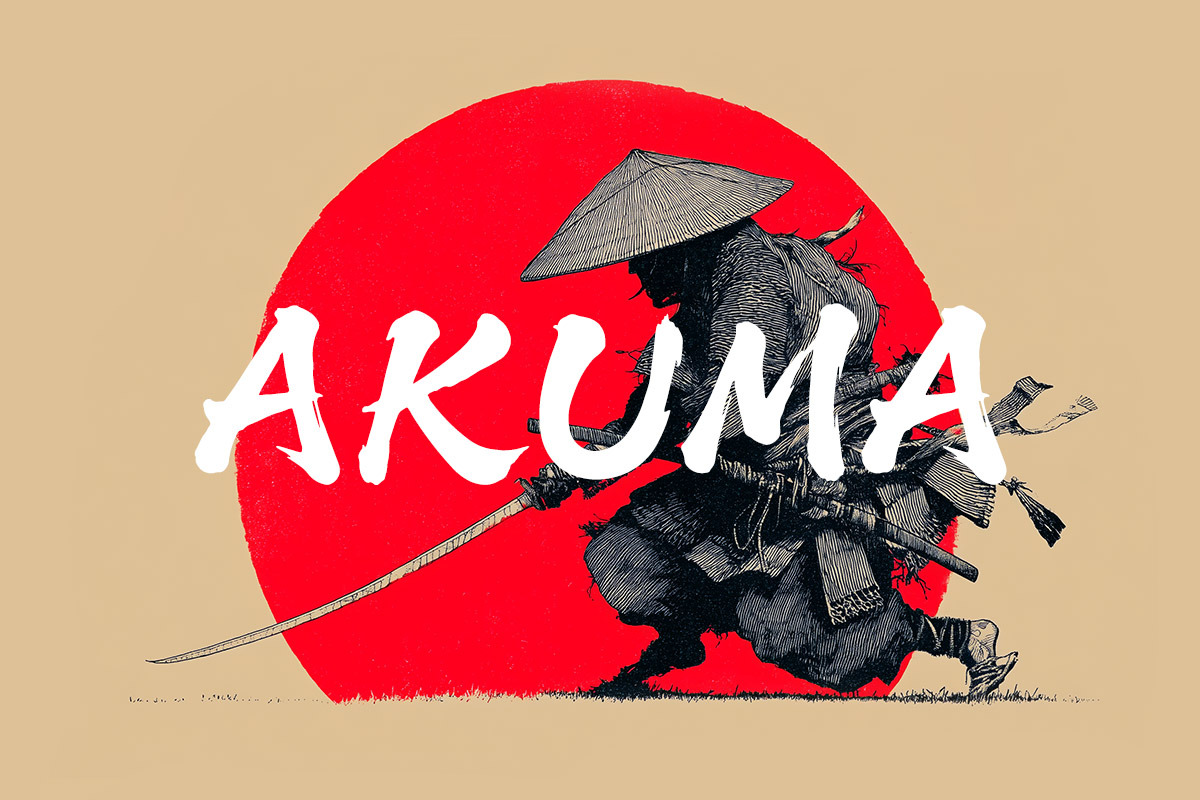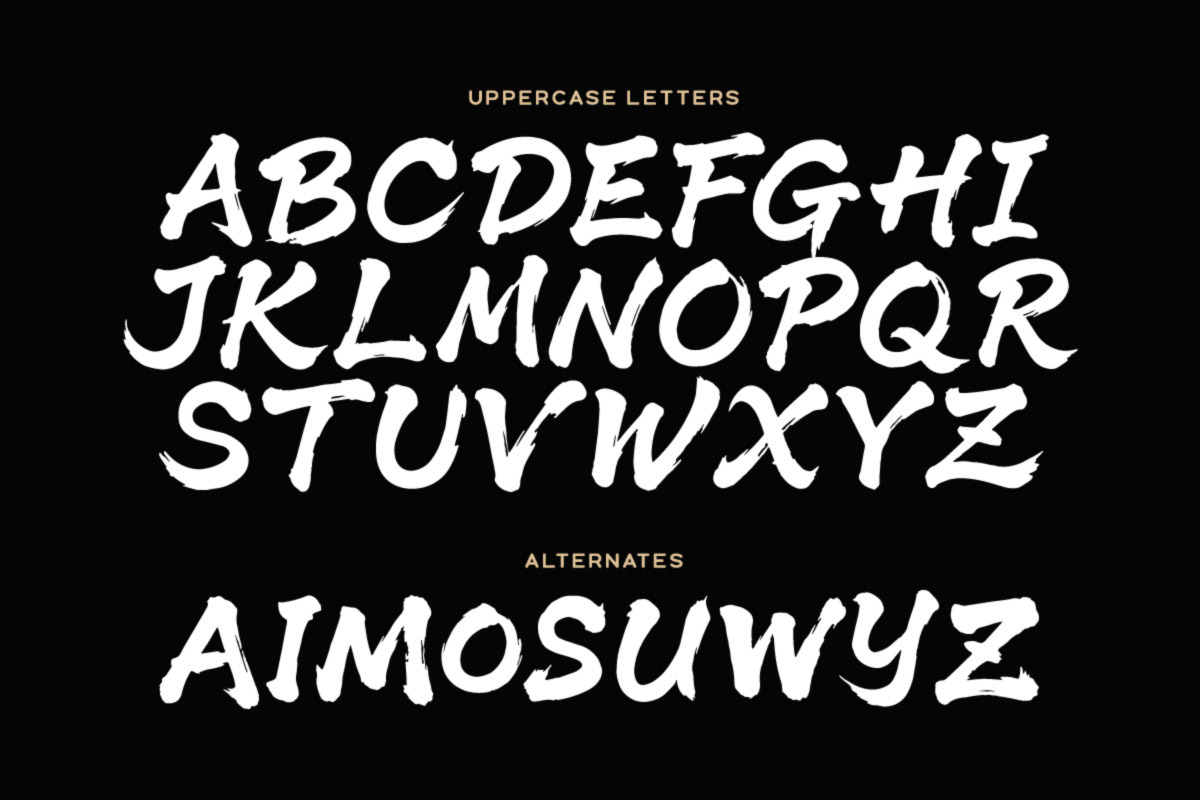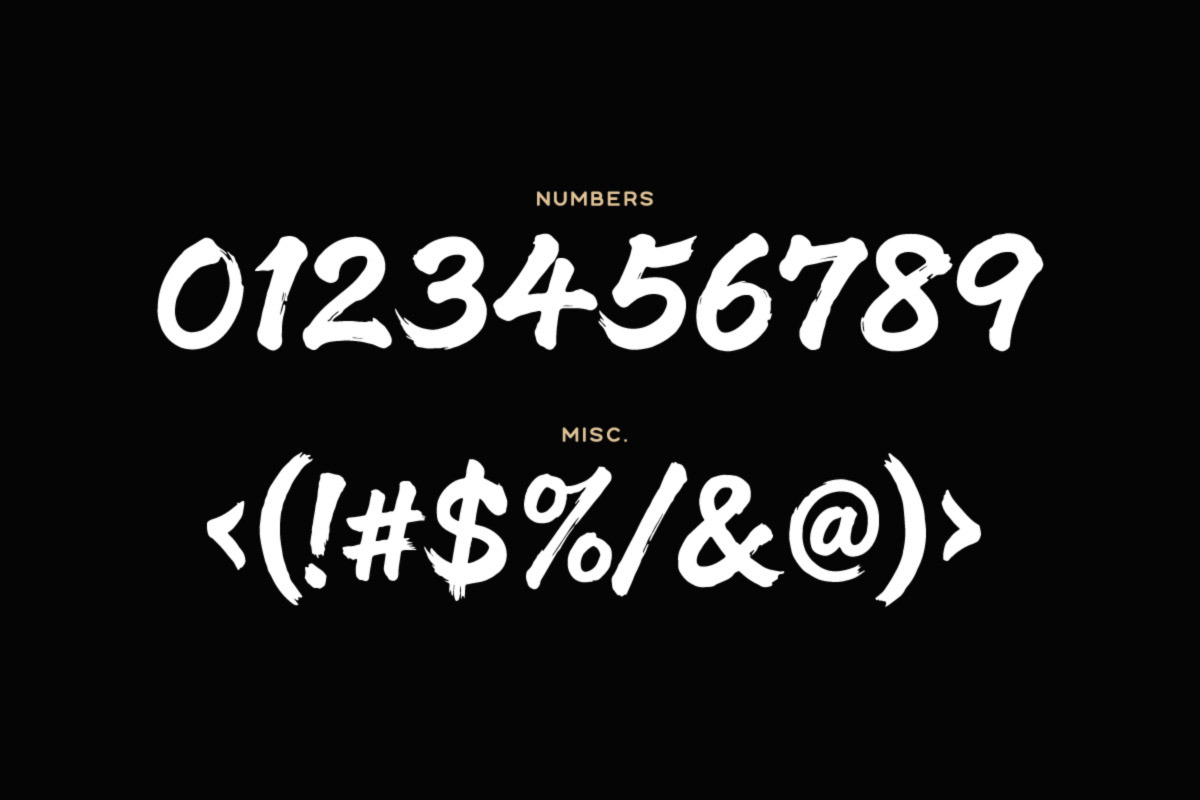
Akuma - Brush Font
AKUMA is a fierce hand-painted display font inspired by traditional Japanese brushwork, samurai aesthetics, and bold ink textures. Every letter carries the energy of fast, expressive brush strokes — perfect for designers who want a dramatic, handcrafted style with real movement and personality.
With its rough edges, dynamic curves, and ink-splattered details, AKUMA brings instant intensity to any project. Whether you're designing for games, posters, apparel, tattoo branding, or cinematic titles, this font delivers a powerful aesthetic rooted in Eastern calligraphy and warrior culture.